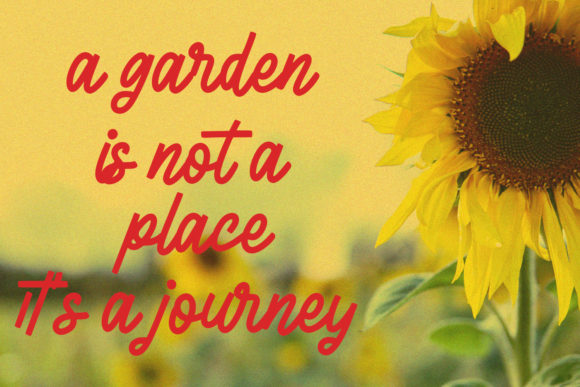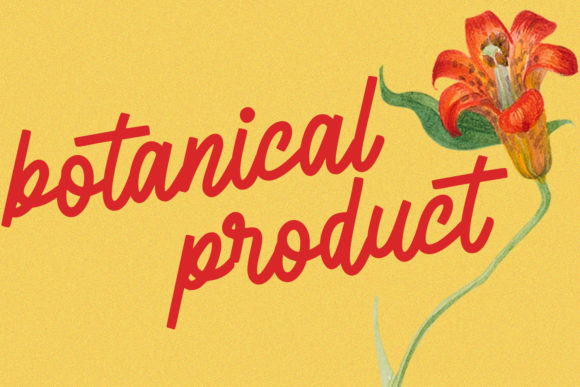
La Flexes Font
db-ku.com - Script & Handwritten -- La Flexes is a fancy handwritten script font. It will add elegance and class to any of your design projects. This font can be used to write various kinds of products according to the aspect of each need.